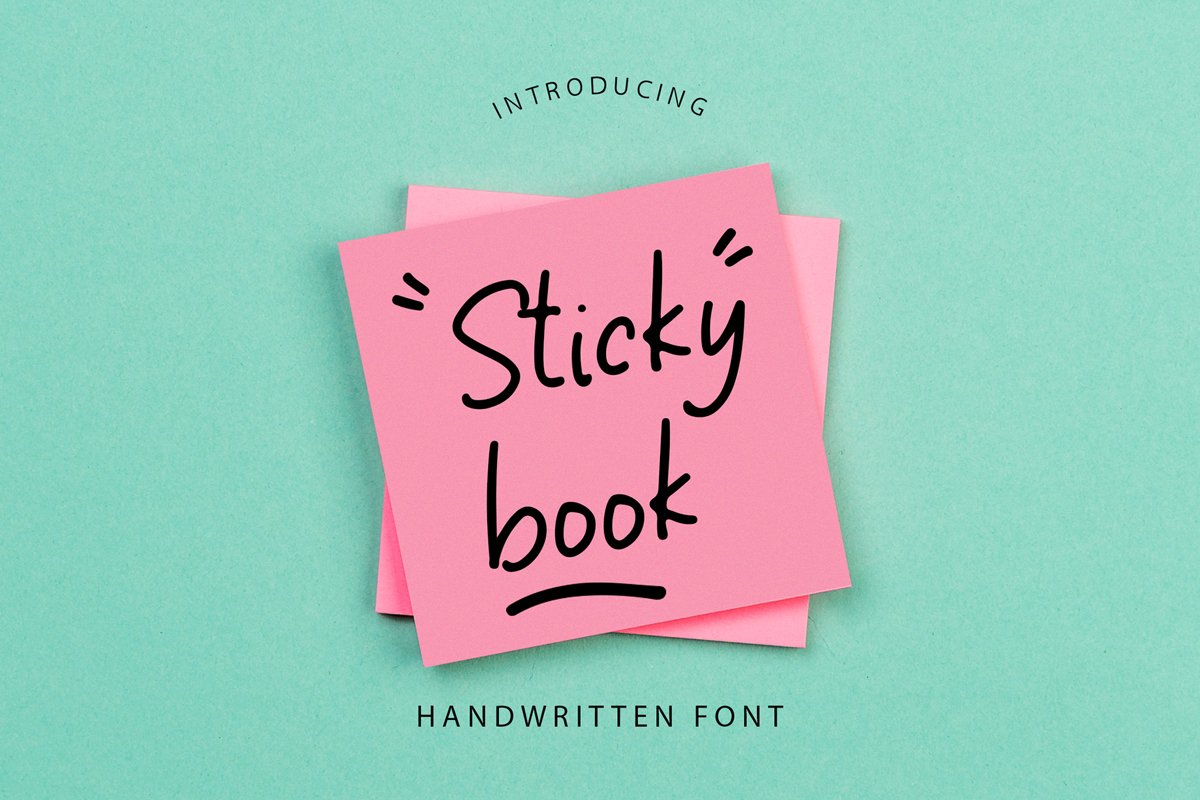
Sticky Book Modern Handwritten Font
StickyBook
Sticky Book is playful modern handwritten font. This font perfect for branding projects, logo, book cover design, tshirt designs, social media posts, advertisements, product packaging, product designs, label, watermark, invitation, stationery and any projectsWhat's Included :